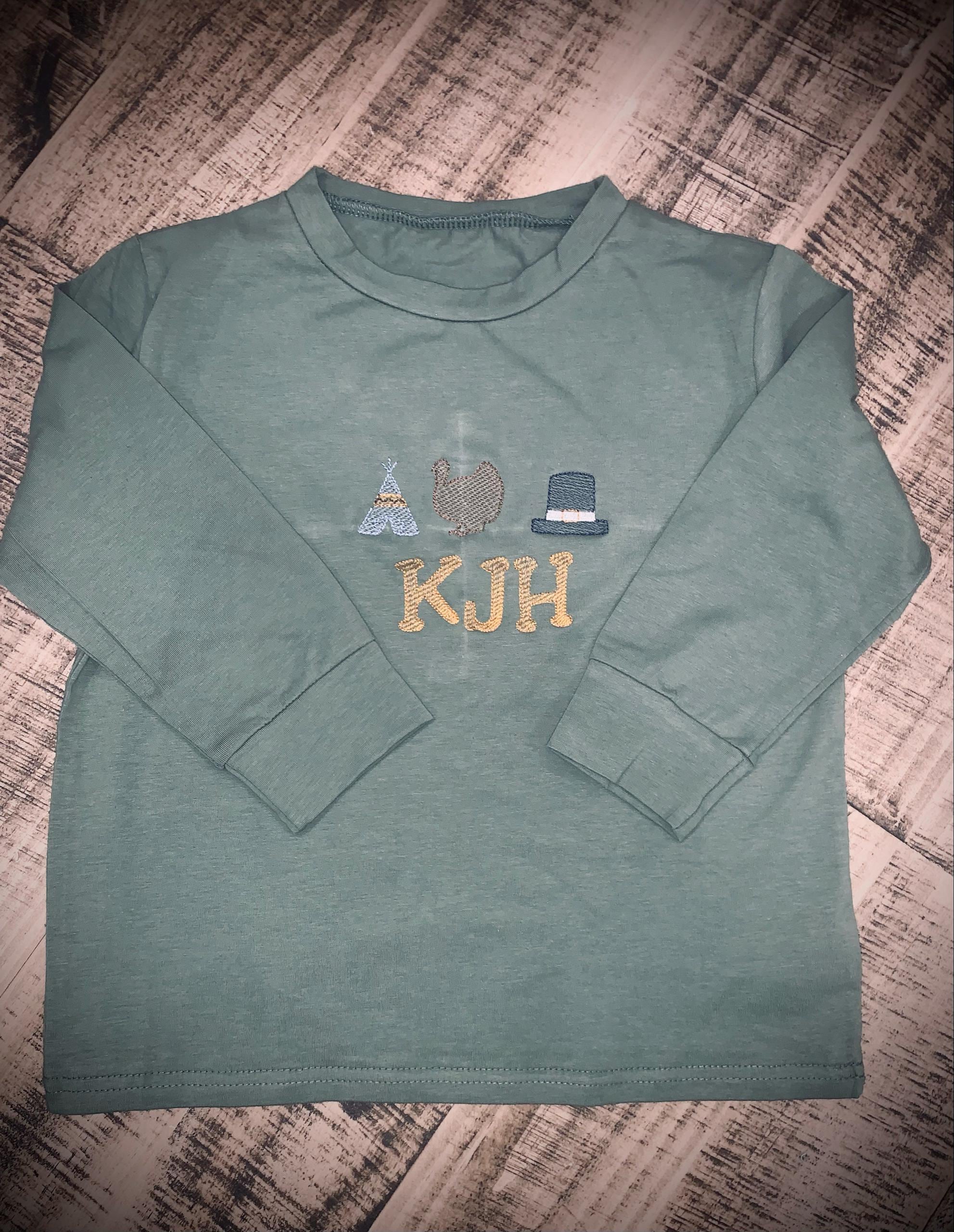
Lucky - Sketch embroidery font
This sketch machine embroidery font works well for name projects, shirts, tote bags, towels, gifts, and playful everyday embroidery.
A useful digital download for makers who want a light stitched look with a casual hand-drawn feel.
This stitched out so beautifully!
The lettering is very nice
The fonts stitched out nicely.
Love this font to go with the sketch designs on my shirts!!